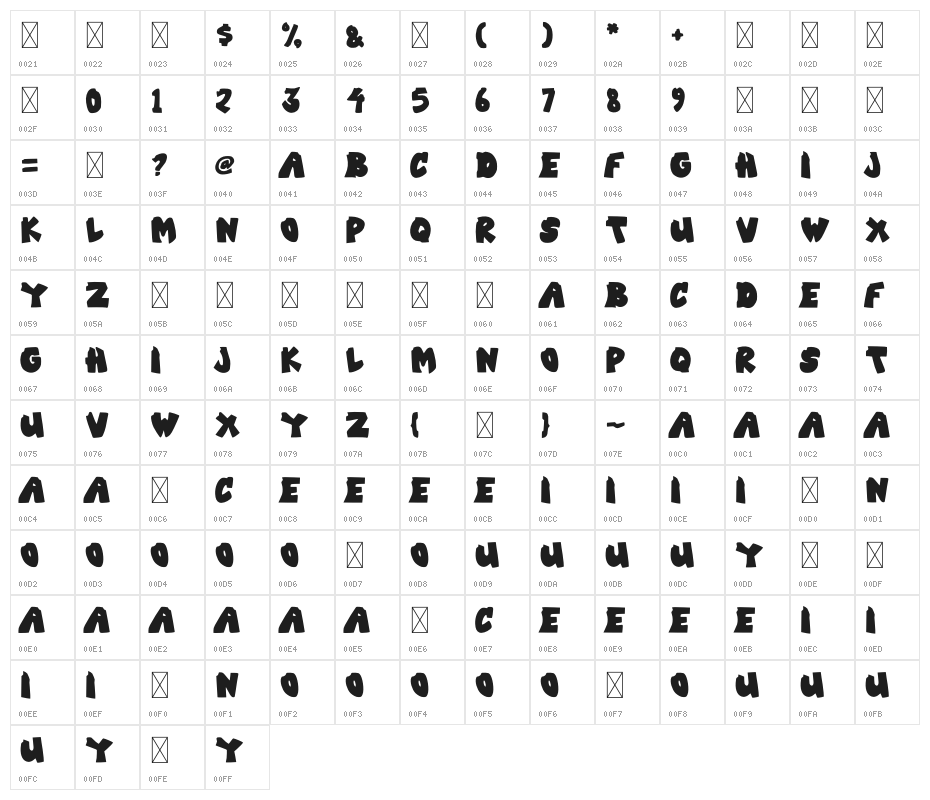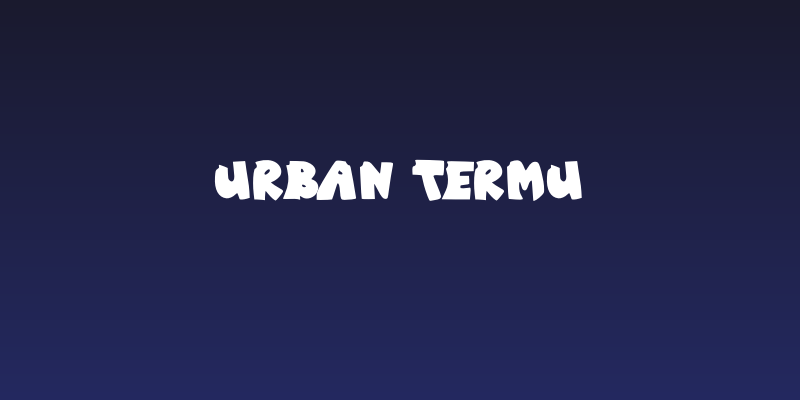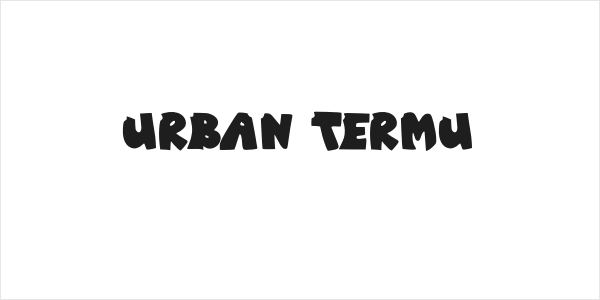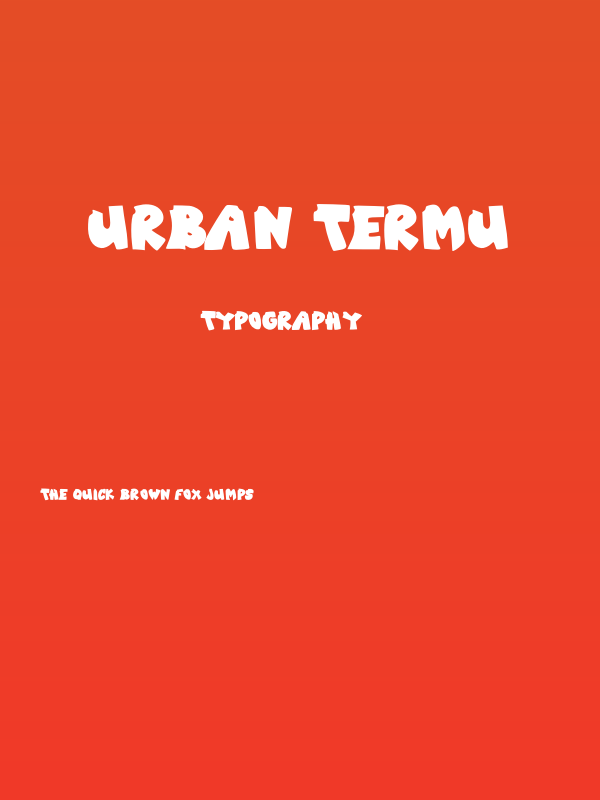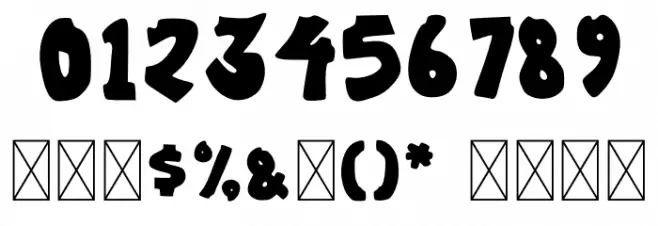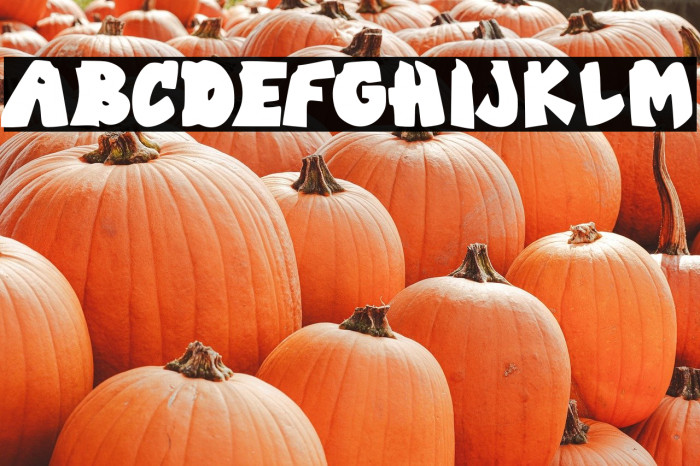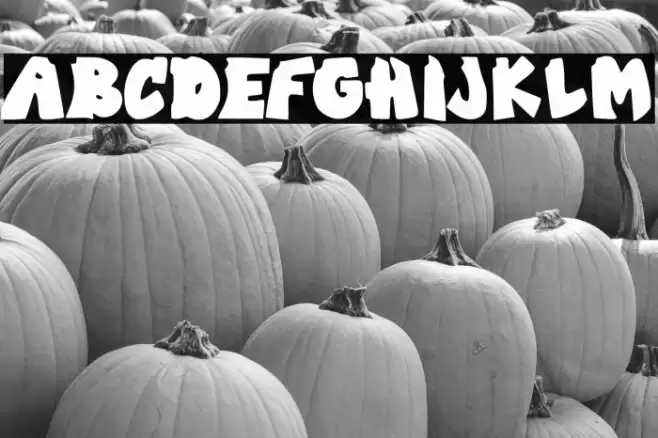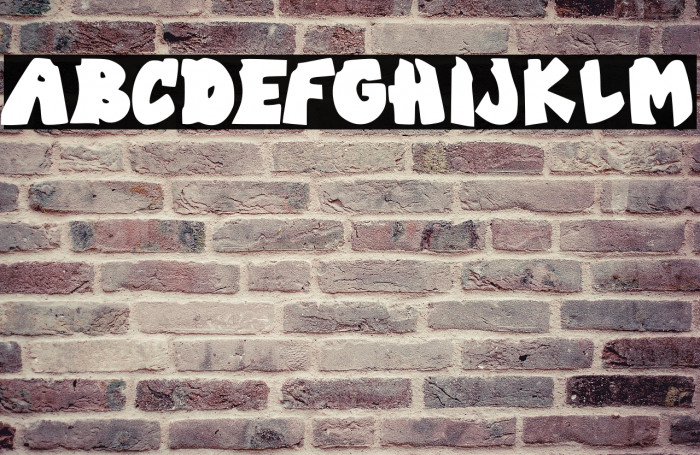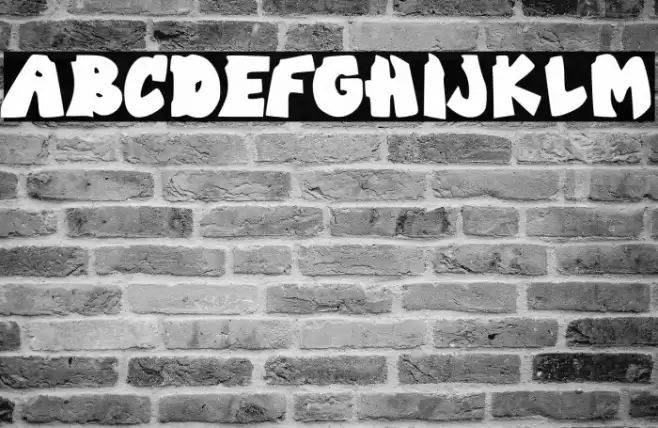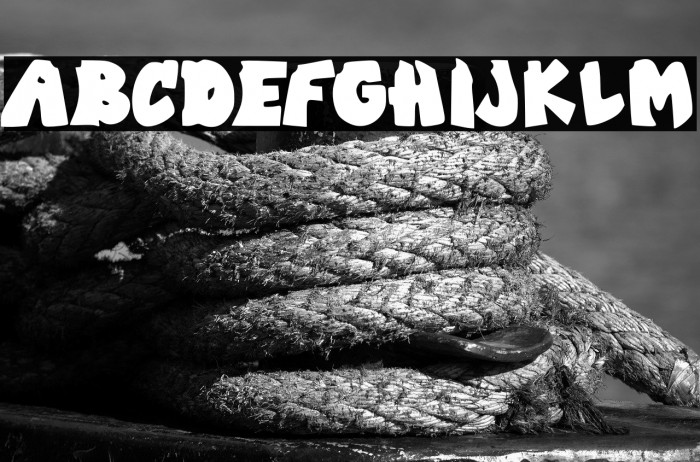
Urban Termu Font
Urban Termu Description
This font features a bold, playful style with exaggerated curves and a chunky appearance. The characters are highly stylized, with a hand-drawn, graffiti-like aesthetic that gives them a dynamic and energetic feel. The uppercase and lowercase letters maintain a consistent weight, contributing to a cohesive look. The numbers and special characters follow the same design principles, ensuring uniformity across all elements. The font's unique style makes it stand out, making it ideal for projects that require a strong visual impact.
| Overall Style | Urban, Playful, Energetic |
| Use Case | Headlines, Posters, Branding |
| Proposed Projects | Ideal for street art designs, urban-themed posters, children's book covers, and playful branding projects. |